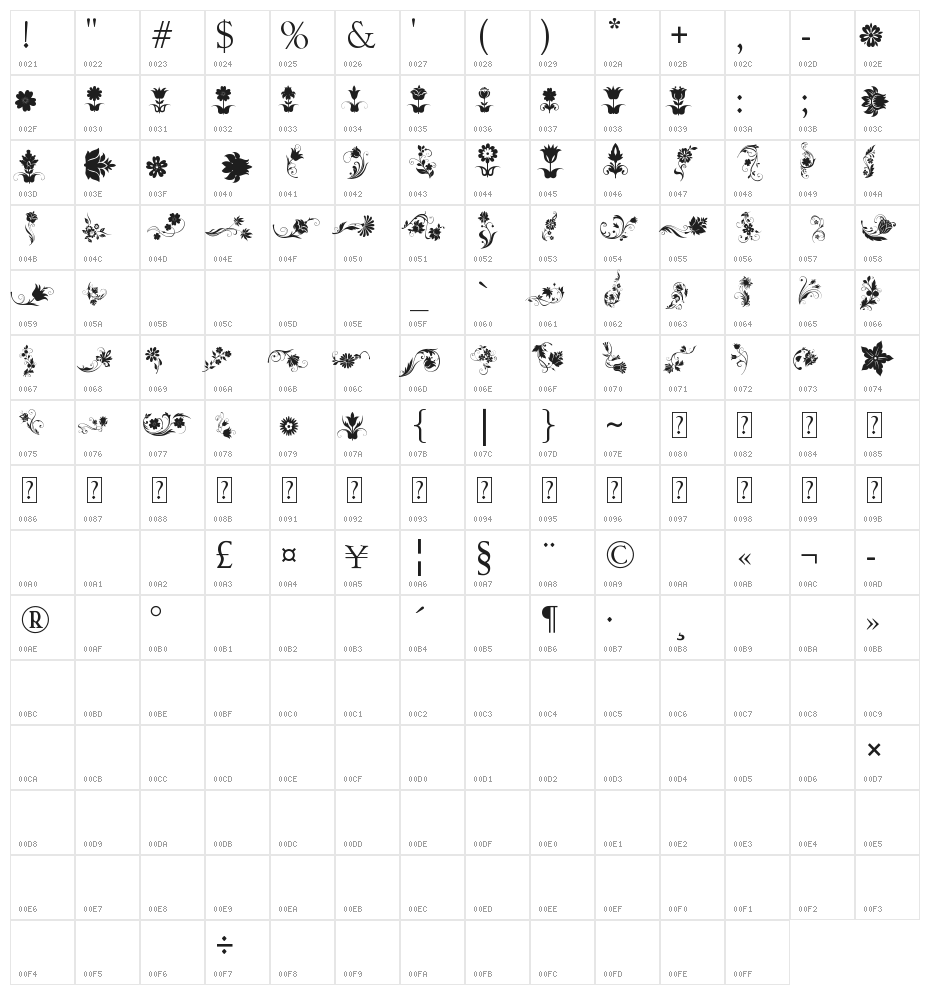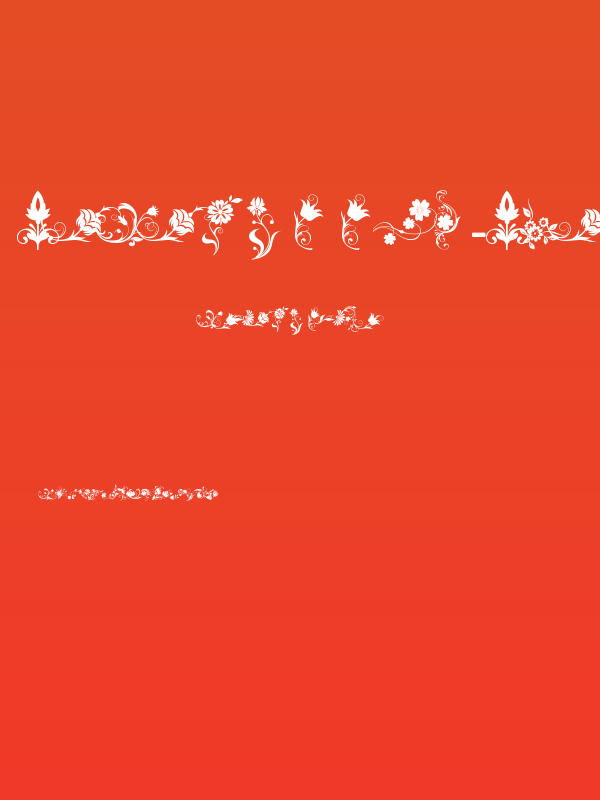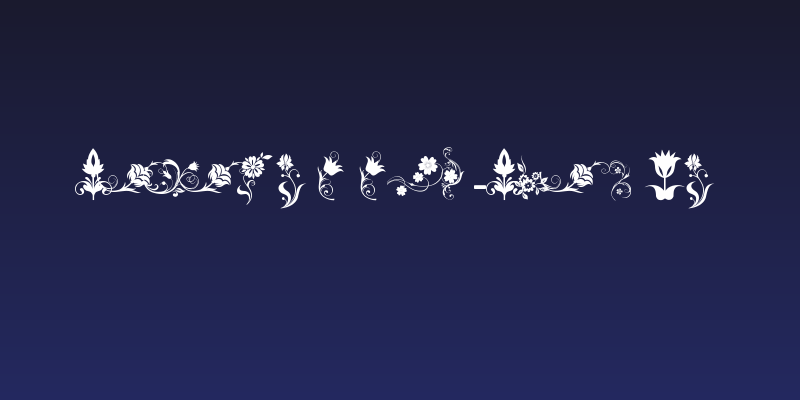
fotograami-flower Font
fotograami-flower Description
A decorative typeface featuring intricate floral and botanical motifs, with ornate swashes and detailed flower illustrations integrated into each glyph. The characters are highly stylized, making them more suitable for ornamental use rather than standard text.
Overall StyleDecorative, Ornamental, Botanical
Use CaseLogos, Headlines, Decorative borders, Invitations
Proposed ProjectsWedding invitations, event posters, decorative borders, branding for florists, packaging design, ornamental headings.